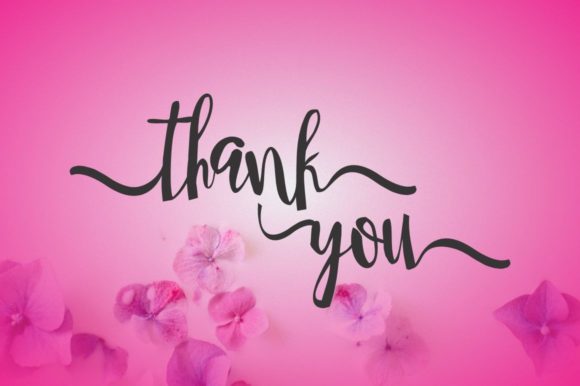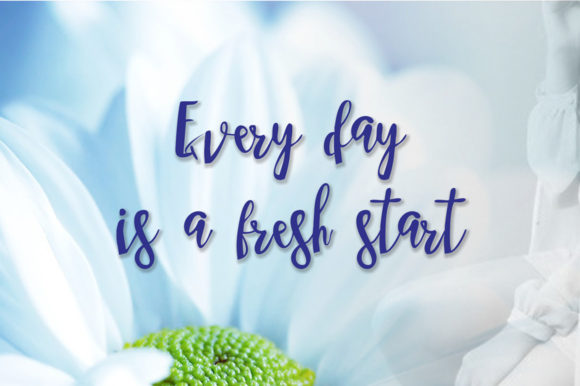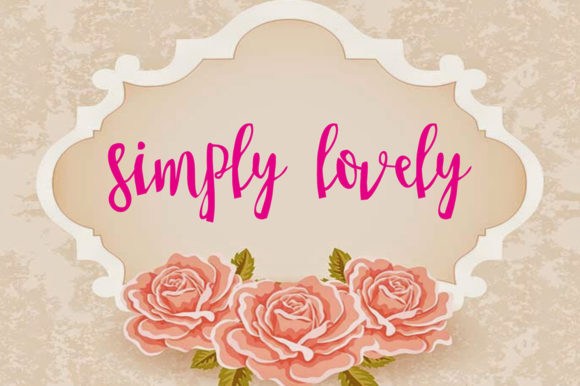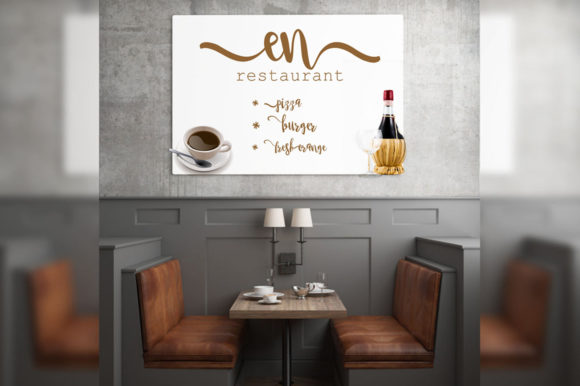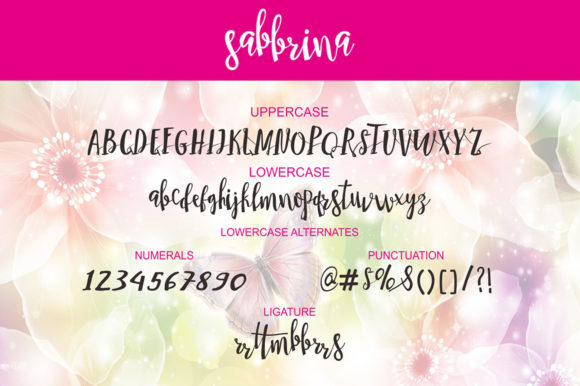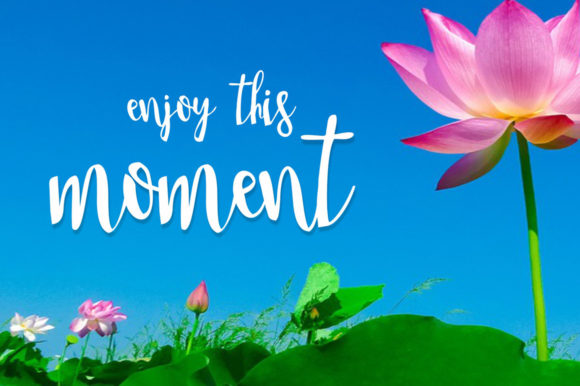
Introduction to Sabbrina Font
Have you ever been working on a creative project and suddenly, you’re stuck on finding the perfect font to match the mood of your design? That’s exactly what happened to me last week when I was creating a custom wedding invitation for a friend’s special day. I wanted something that would evoke a sense of romance and whimsy, and that’s when I stumbled upon the beautiful Sabbrina Font.
This lovely handwritten font has a way of adding a touch of elegance and sophistication to any design, making it perfect for a wide range of creative projects, from wedding invitations to greeting cards. With its high-quality design and transparent background, the Sabbrina Font is a valuable resource for designers looking to add a personal and romantic touch to their work.
Key Features of Sabbrina Font
- High-quality, professional font designed for creative projects, ideal for use in graphic design, digital art, and publishing.
- Transparent background, allowing for seamless integration with various design elements and backgrounds.
- Available in a range of sizes and resolutions, including 300 DPI and 600 DPI, making it suitable for various design applications.
- Unique, elegant design with a touch of sophistication, perfect for use in logos, typography, and other creative projects.
Honest Review: Sabbrina Font
I recently had the chance to work with the Sabbrina Font, and I must say it’s been a game-changer for my creative projects. As a designer, I’m always on the lookout for high-quality fonts that can elevate my designs and make them stand out. The Sabbrina Font delivers on this front, with its elegant and sophisticated style that works perfectly for a wide range of creative projects.
Here are some of the things that I love about the Sabbrina Font:
- ✨ High-quality design: The font is beautifully crafted, with smooth lines and precise details that make it perfect for both digital and print designs.
- ✨ Transparent background: The font’s transparent background makes it easy to use in designs with complex backgrounds or images.
- ⚠️ Limited font sizes: While the font looks great at larger sizes, I found that it can get a bit pixelated at smaller sizes.
- ⚠️ Not ideal for bold text: The font’s design doesn’t lend itself well to bold or italic text, so I had to get creative with my typography.
Tips for Getting the Most Out of Sabbrina Font
To get the most out of the Sabbrina Font, experiment with different font sizes, colors, and combinations to find the perfect look for your design project. You can also use it in conjunction with other design elements to create a unique and eye-catching visual effect.
The Sabbrina Font is a versatile design resource that can be used in a variety of creative projects, including logos, business cards, brochures, and more. Its elegant and sophisticated design makes it perfect for use in corporate branding, wedding invitations, and other high-end design projects.